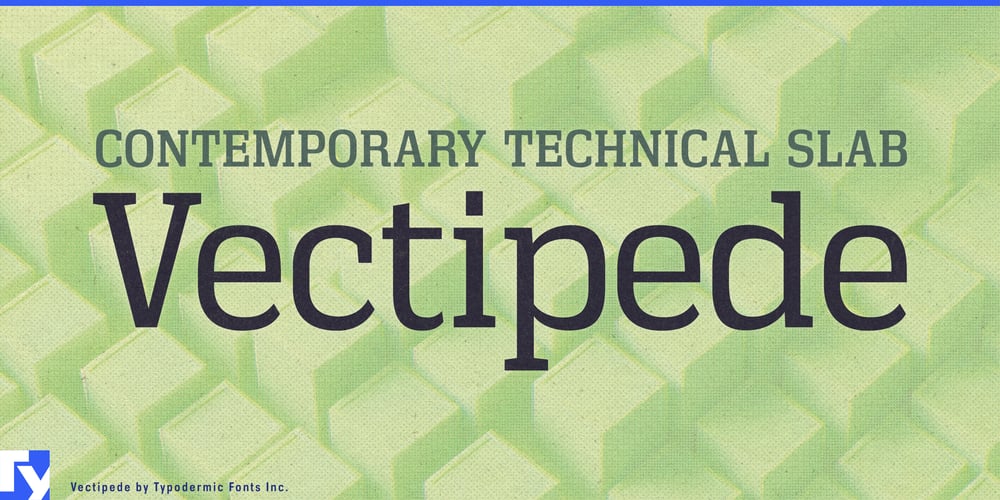
Vectipede
Vectipede font
Vectipede Font Family was designed by Ray Larabie, Chikako Larabie and published by Typodermic. Vectipede contains 14 styles and family package options. Meet Vectipede—the typeface that stands tall, speaks clearly, and commands attention. This is a declaration of intent, a typographic tour de force that exudes confidence from every slab serif.Vectipede doesn’t ask for permission to be noticed—it demands it. With its bold stance and sharp edges, it plants itself firmly in your design, providing an unshakeable foundation for your message. Each character is a testament to stability, each line a promise of dependability. When you choose Vectipede, you’re not just selecting a typeface; you’re making a statement about unwavering assurance. But Vectipede isn’t all bravado—it’s got the brains to back up its bold appearance. Its letterforms strike a perfect balance between striking aesthetics and pragmatic readability. The crisp angles and clean lines don’t just look sophisticated; they ensure your message cuts through the noise with laser-like precision.Versatility? Vectipede owns it. With seven weights and their italic counterparts, it confidently strides from attention-grabbing headlines to body text that demands to be read. Need to flex some typographic muscle? Vectipede’s OpenType features, including numeric ordinals and old-style numerals, are ready to elevate your design game. Vectipede doesn’t stop at looking good in English. It confidently speaks in a multitude of tongues, supporting an extensive range of Latin-based European writing systems. From Afrikaans to Zulu, Vectipede ensures your message maintains its impact across borders and cultures.When your design needs to make a lasting impression, don’t settle for typefaces that whisper—choose one that roars. Vectipede is your typographic ally in a world of visual noise. Get Vectipede today and watch as your designs transform from ordinary to extraordinary. With Vectipede, you’re not just setting type—you’re setting the standard.